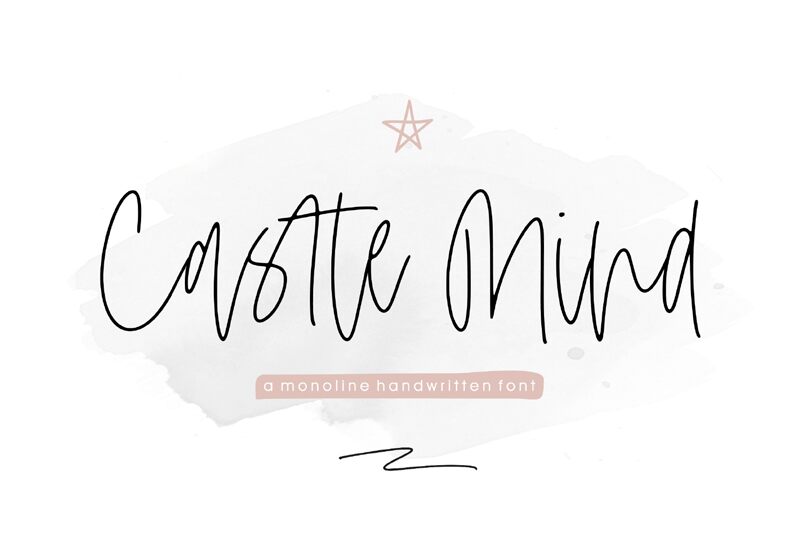
Introducing Castle Mind, a handwritten font designed by Annas Alam Yahya. With its thin and narrow lines, this stylish typeface is perfect for creating eye-catching logos, posters, invitations and more.
Castle Mind
Annas Alam Yahya